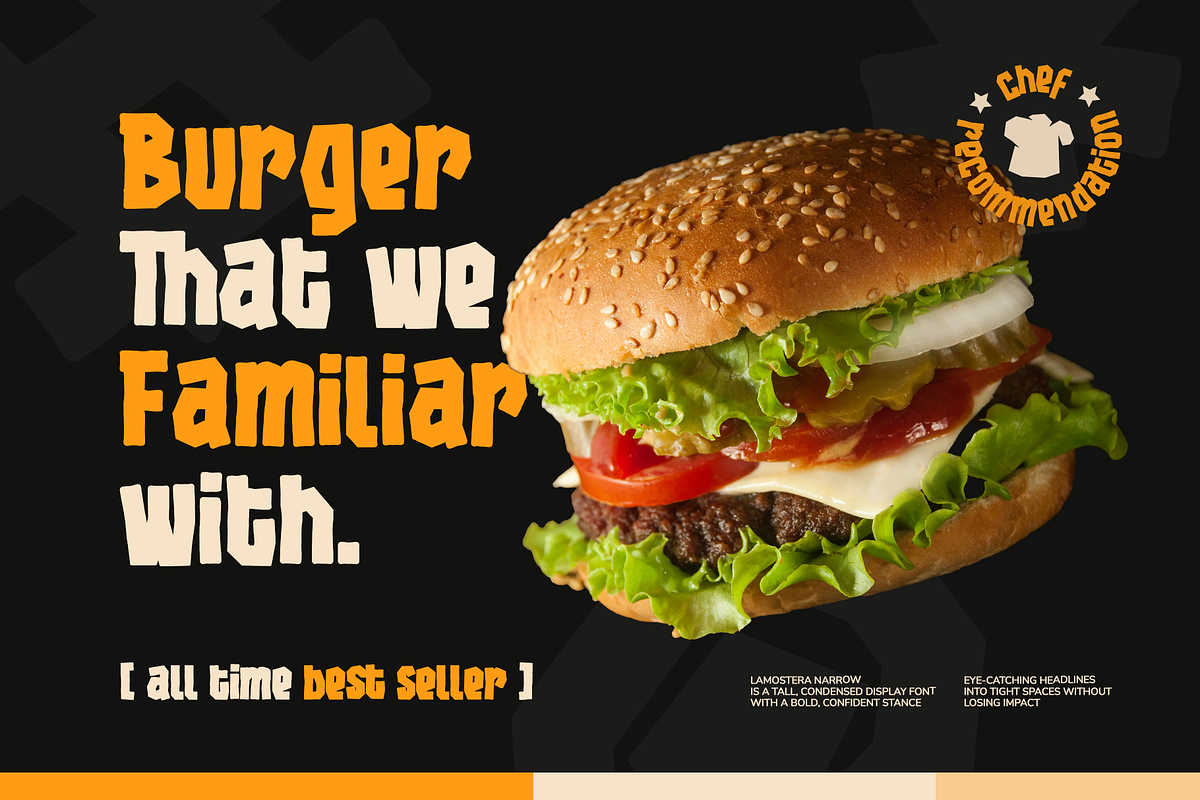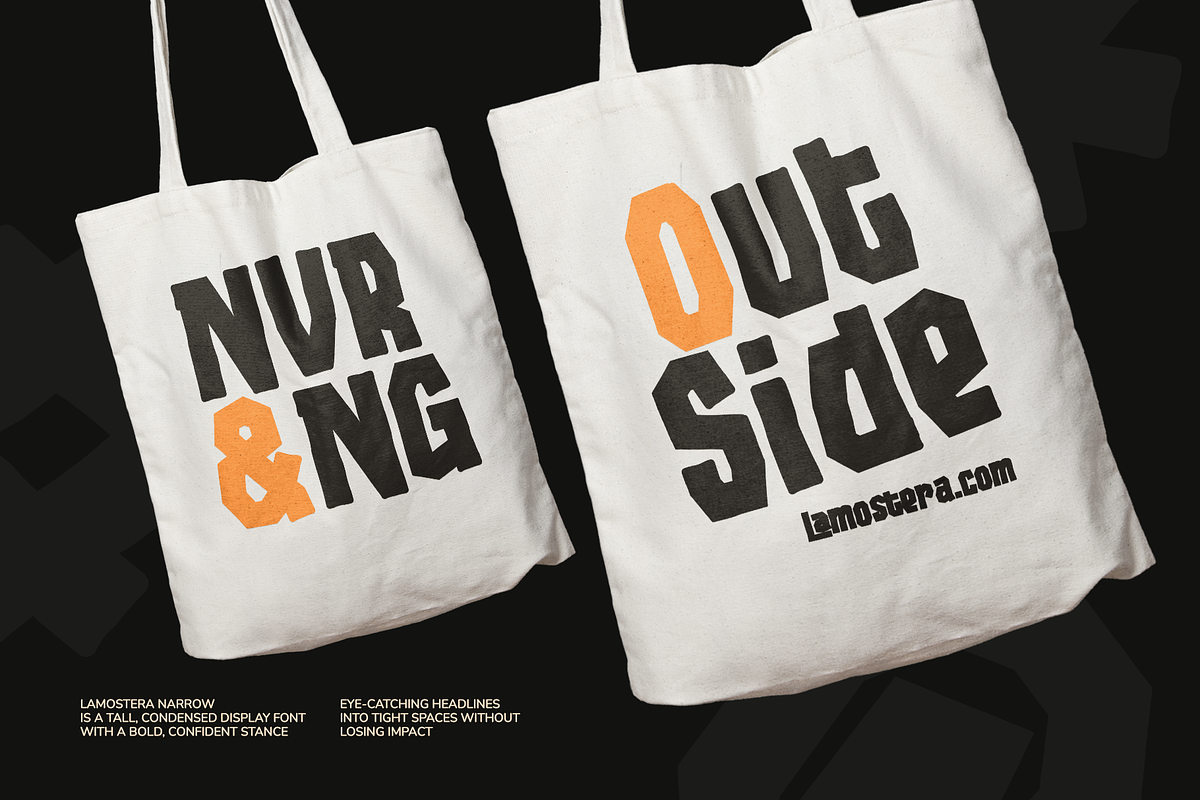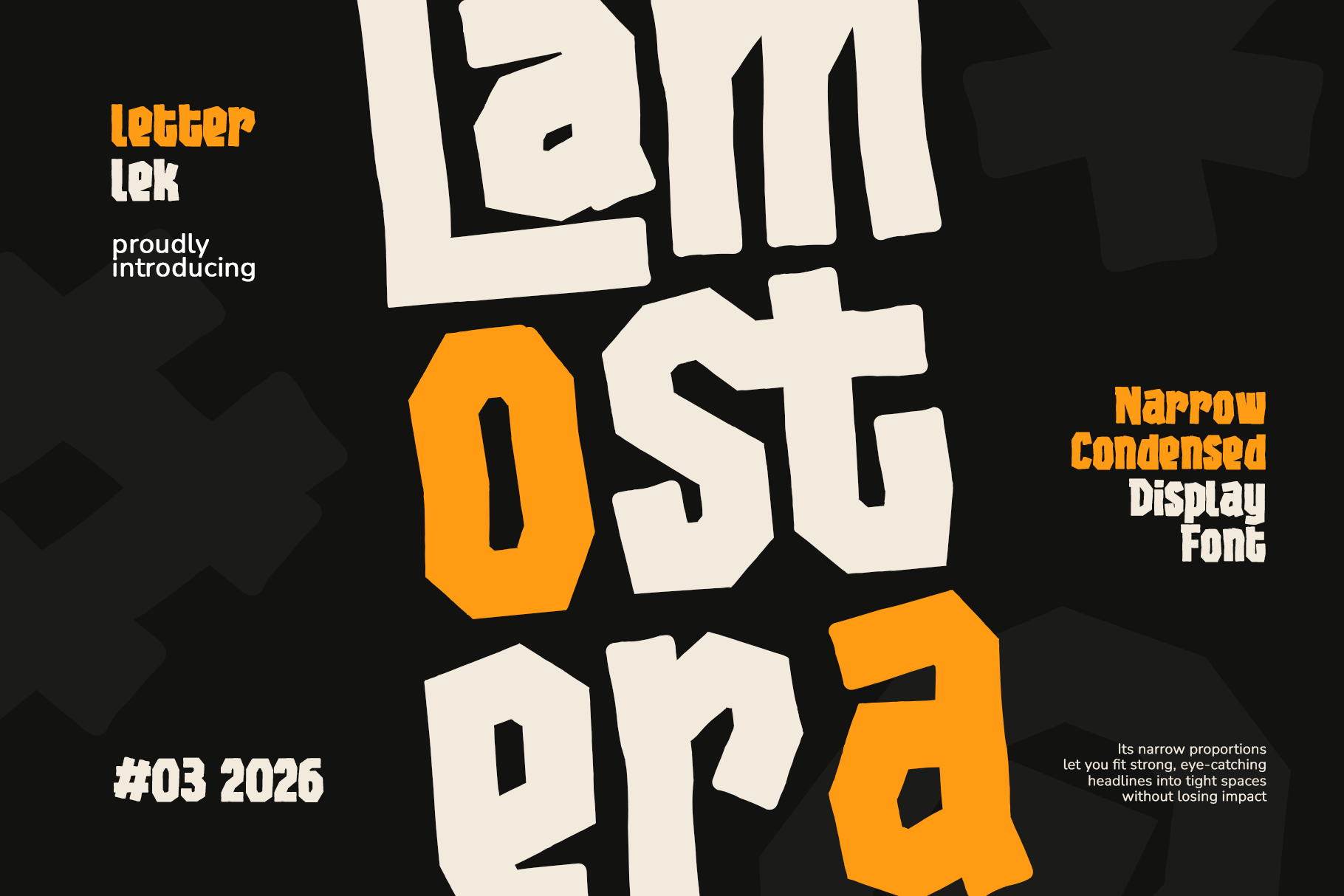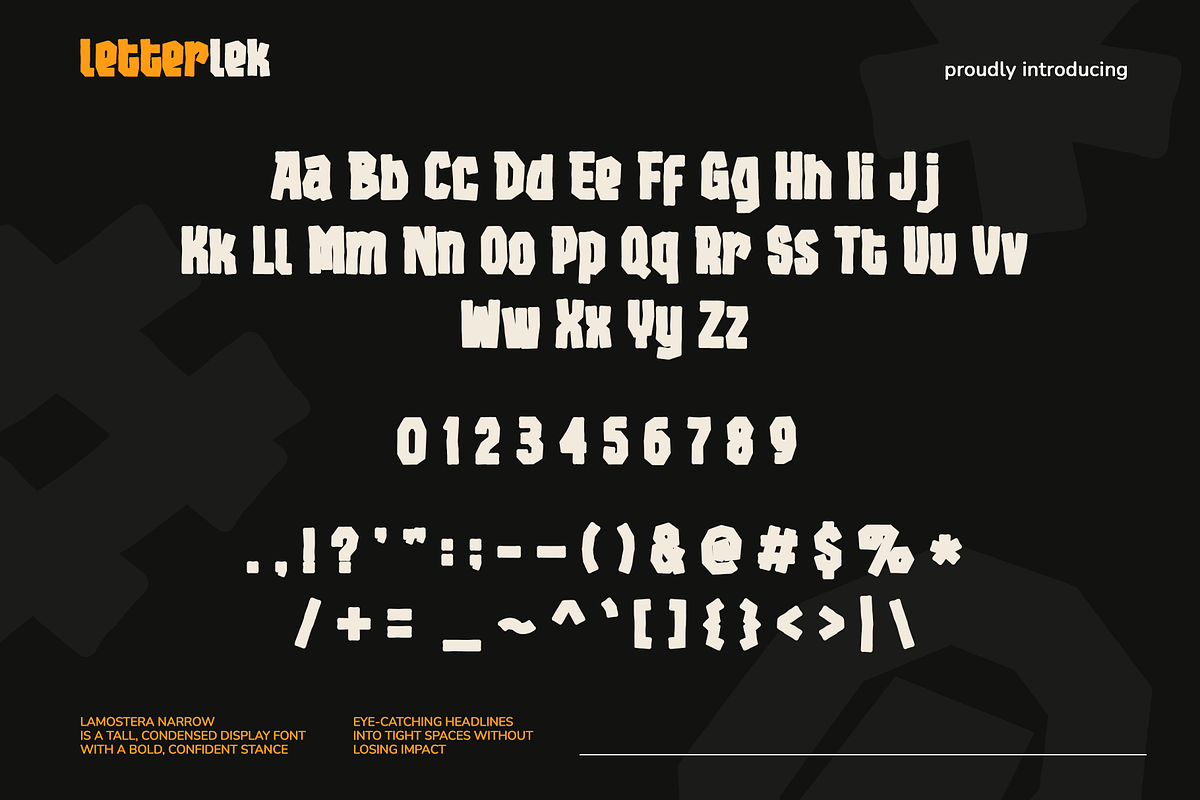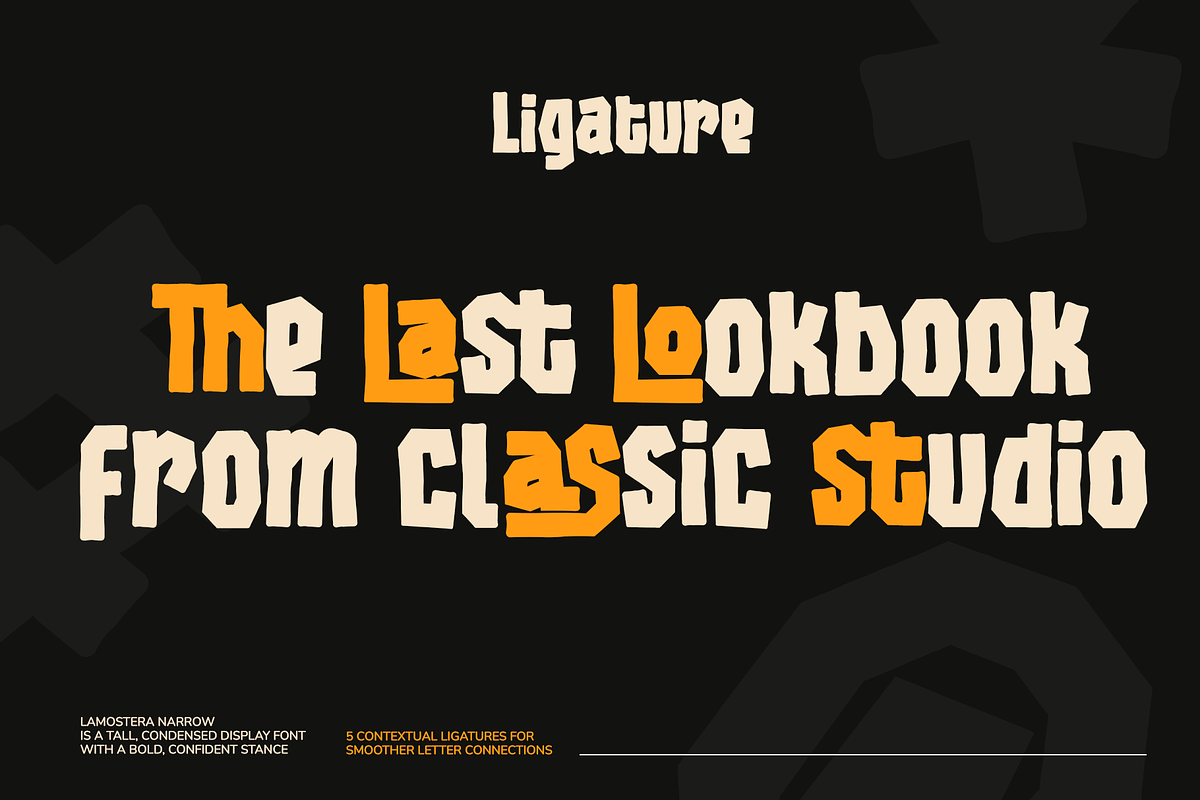
Lamostera Condensed Display Font
Lamostera Narrow is a tall, condensed display font with a bold, confident stance.
Its narrow proportions let you fit strong, eye-catching headlines into tight spaces
without losing impact, and it includes 5 contextual ligatures for smoother letter
connections.
- Fashion and editorial headlines
- Perfume, cosmetics and premium packaging
- Posters and narrow banner layouts
- Logos and wordmarks that need a tall, elegant presence
- Magazine covers and titles
- 5 contextual ligatures for smoother letter connections